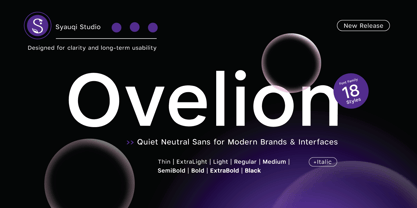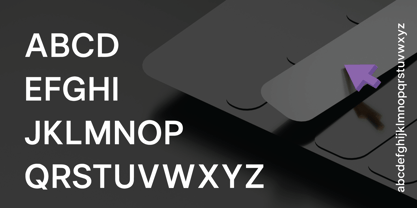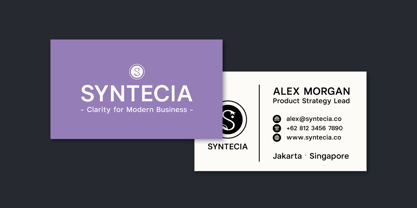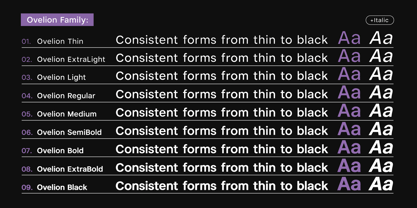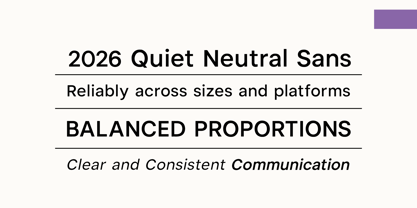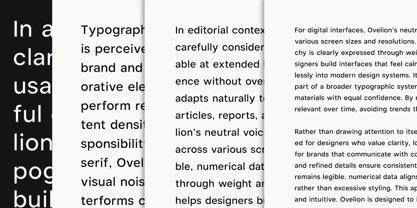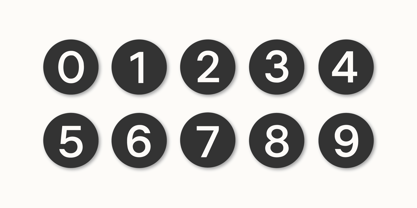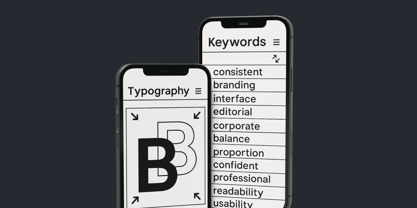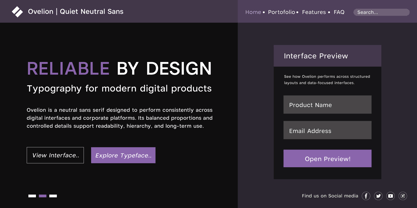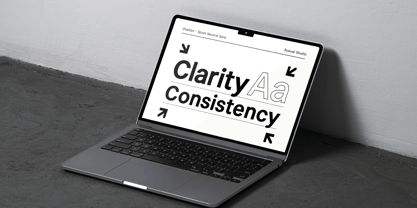
Ovelion
by Syauqi Studio
The Ovelion Font Family was designed by Muhammad Asroful Umam and published by Syauqi Studio. Ovelion contains 18 styles and family package options.
Ovelion - Quiet Neutral Sans for Modern Brands & Interfaces. Ovelion is a quiet, neutral sans serif designed for modern branding, digital interfaces, and professional communication. Built for clarity and consistency, Ovelion delivers excellent readability and visual balance across both screen and print environments. With balanced proportions and controlled details, Ovelion offers a clean, confident typographic voice with a warm, professional tone. Its refined and rational letterforms make it highly suitable for UI systems, websites, mobile apps, editorial layouts, and corporate identity projects where neutrality and reliability are essential. Designed with usability at its core, Ovelion performs consistently across sizes, resolutions, and platforms. The letterforms remain clear in small text settings while maintaining a polished presence in headlines and branding applications. This versatility makes Ovelion a dependable choice for long-term design systems and brand-safe typography. Ovelion is ideal for contemporary brands, technology companies, startups, fintech products, and corporate communications seeking a modern yet understated sans serif. Its neutral character allows it to adapt seamlessly across industries, supporting clear messaging without overpowering visual identity. Whether used for digital products, editorial design, or global branding, Ovelion provides a functional, modern sans serif solution built for professional, real-world use.
Designers: Muhammad Asroful Umam
Publisher: Syauqi Studio
Foundry: Syauqi Studio
Design Owner: Syauqi Studio